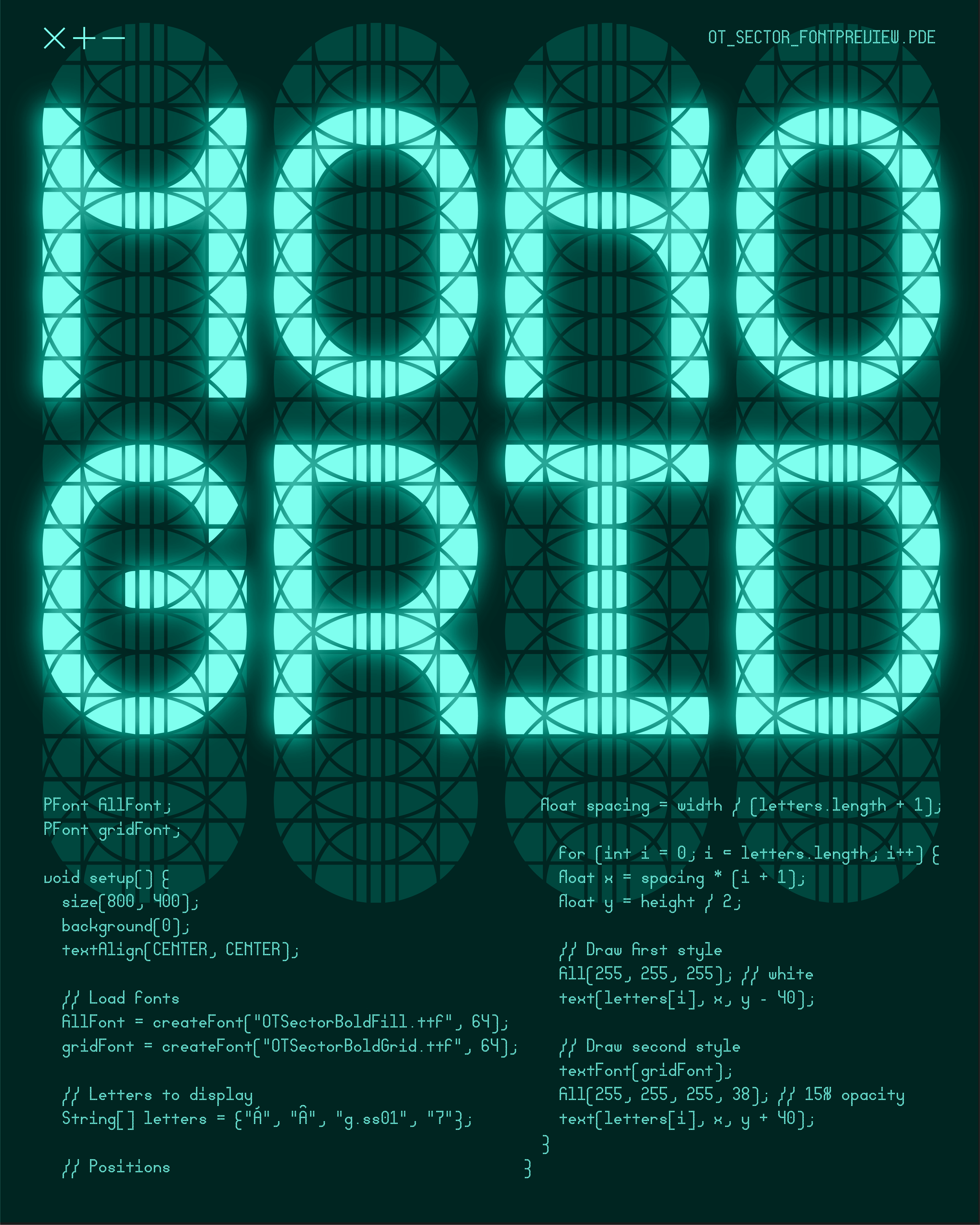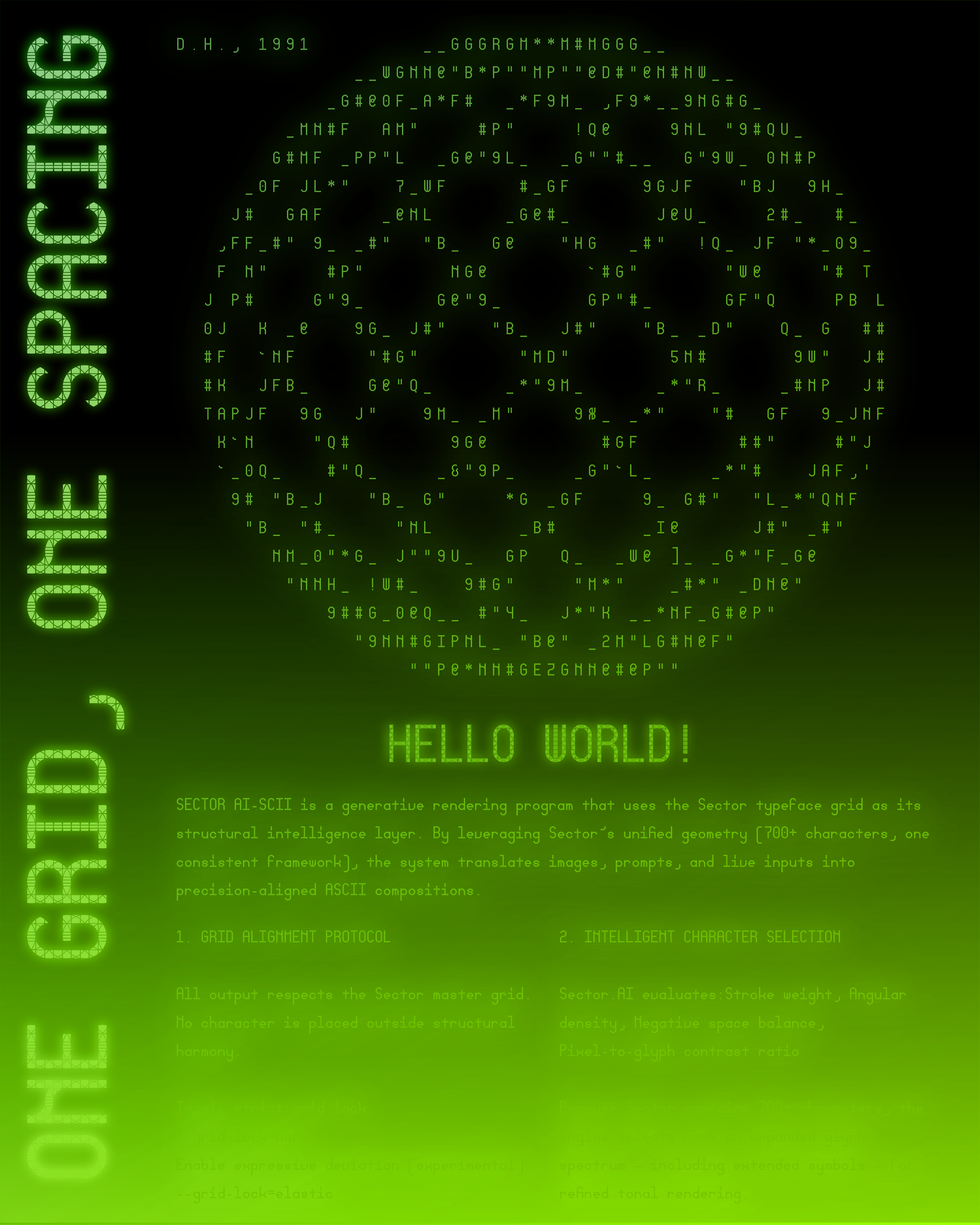
Inspired by the logic of retro LCD displays
Sector Collection
Base, COLR & Grid Options
And Including Rotalics π€
Quartz LCD screens flick by sector with vexed grids jumping bold pixels.
Ask any designer and theyβll likely tell you creativity doesnβt start with freedom, but rather with limitations. Built on a single, fixed grid, an uncompromising framework designed to hold an entire typeface, Sector is the product of such an extremely restrictive design process: inspired by the logic of retro LCD displays, where simple segmented systems can express remarkably complex alphabets, this typeface is able to represent 700 glyphs, including diacritics, small caps, alternates, ligatures, fractions and more features with a single grid module, making it the most versatile and adaptable font in its admittedly narrow genre.
As if that werenβt ambitious enough, Sector expands into a family of six styles across two condensations derived from the same underlying grid: a dependable yet playful geometric sans, and a more daring narrow counterpart with sharp sliced terminals. Completing the family are six βRotalicβ styles, designed to introduce dynamism without compromising the gridβs structure. The result is a cohesive and versatile collection of interconnected styles, designed to operate with or without their βblueprintβ background, either as a bold display stencil or a surprisingly readable text face.